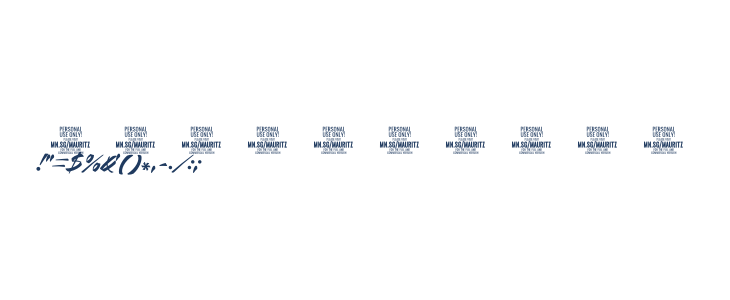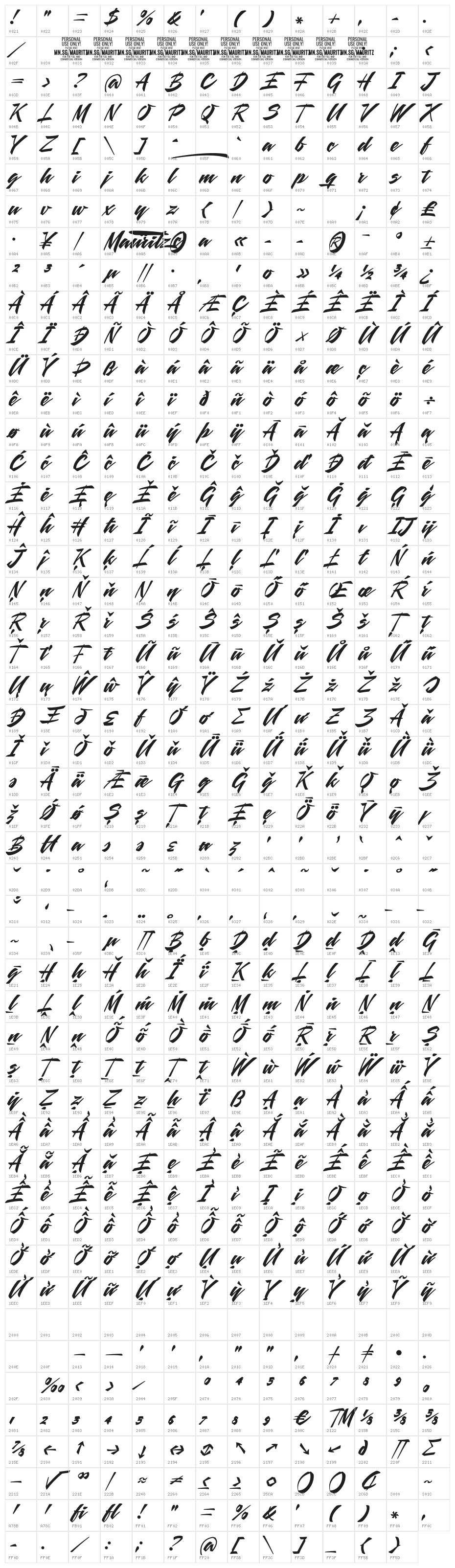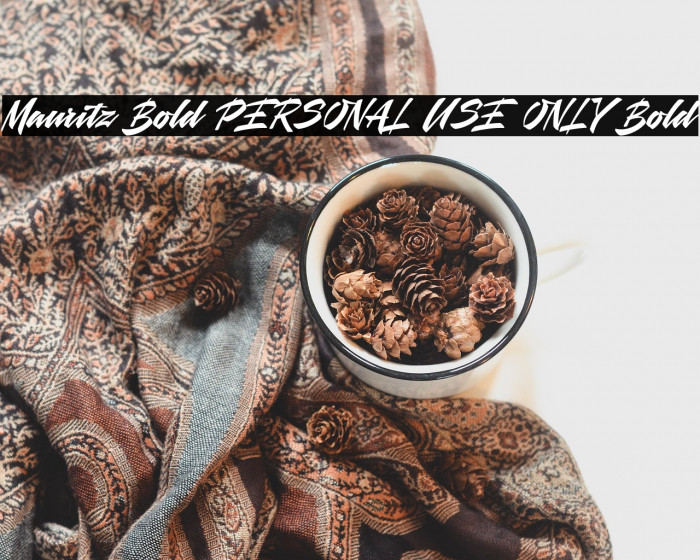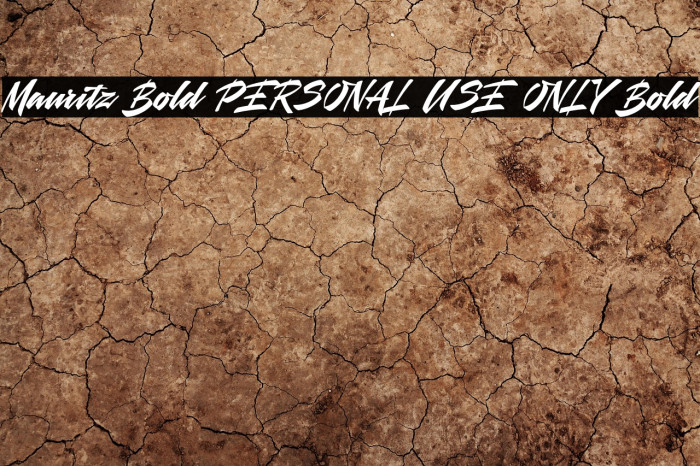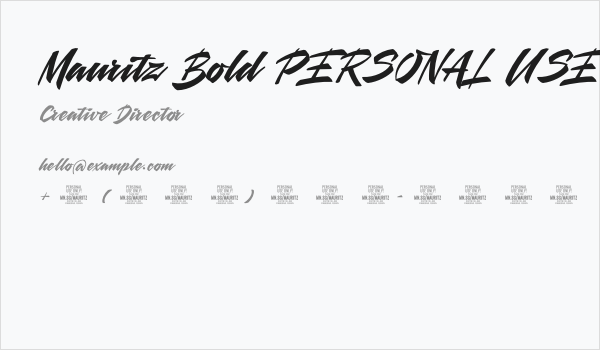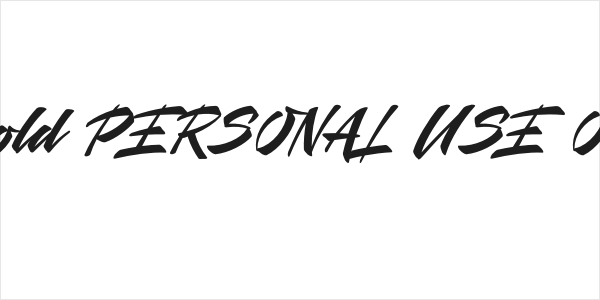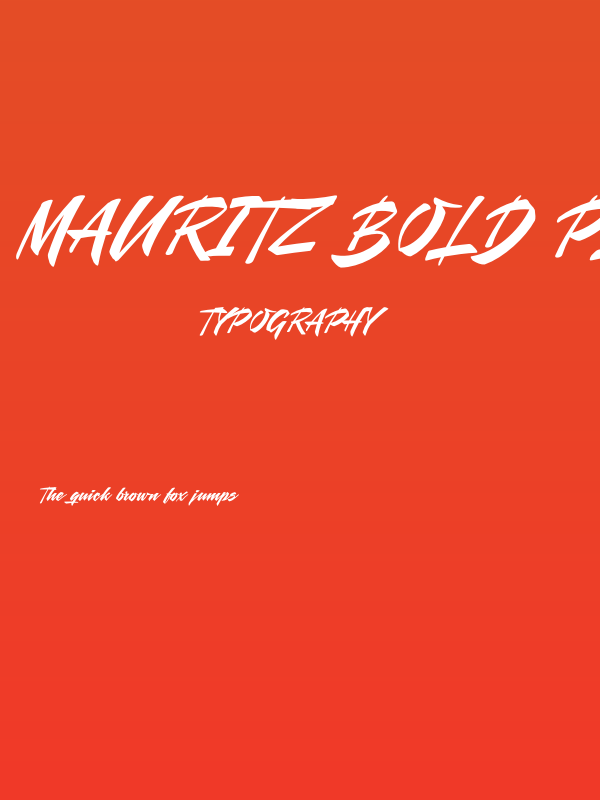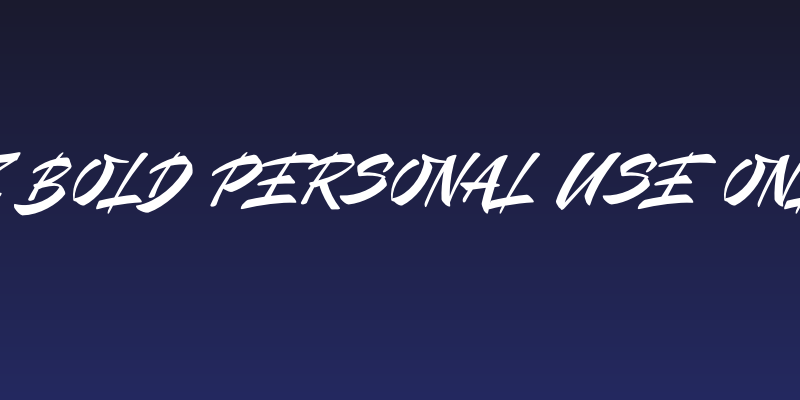
Mauritz Bold PERSONAL USE ONLY Bold Font
Mauritz Bold PERSONAL USE ONLY Bold Description
This font features a bold and dynamic script style, characterized by its sweeping curves and sharp angles. The uppercase letters are particularly striking, with a sense of movement and flair that suggests a handwritten quality. The lowercase letters maintain this fluidity, offering a cohesive and elegant appearance. The numerals and special characters are crafted with the same attention to detail, ensuring consistency across all elements. This font's boldness is complemented by a medium contrast in stroke thickness, adding to its legibility and impact. The overall style is modern and decorative, making it suitable for projects that require a touch of sophistication and energy.